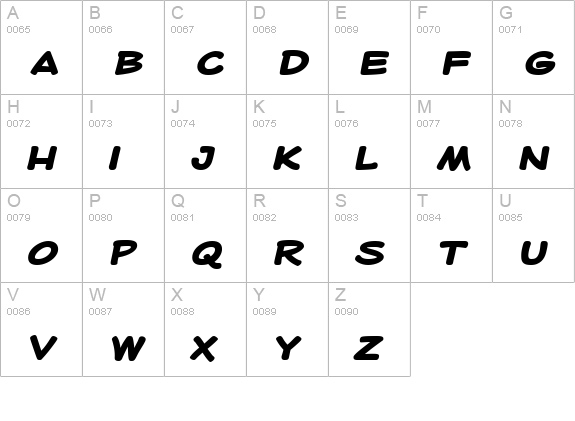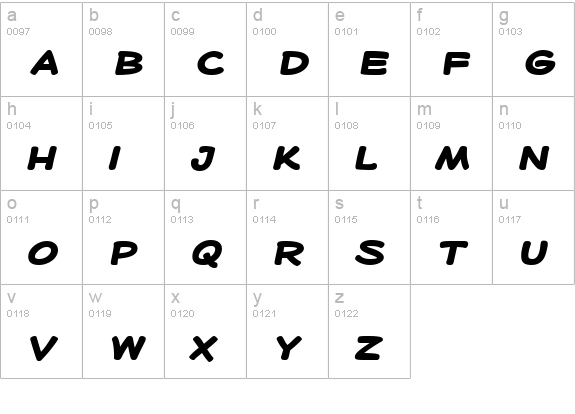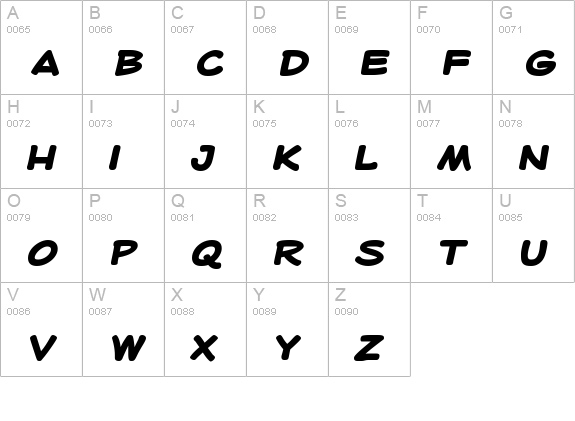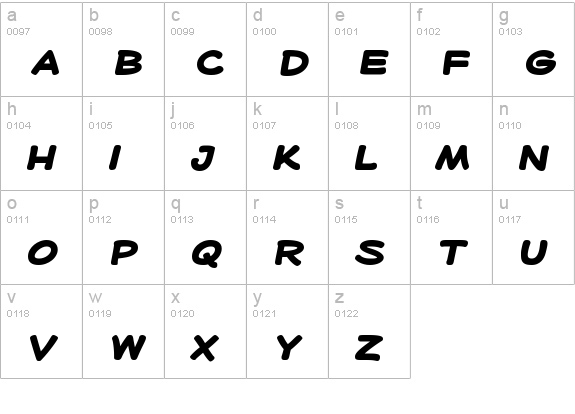
Heroid Bold is a strong, high-contrast variant in the Heroid typeface family \xE2\x80\x94 well suited to headlines, attention-grabbing titles, and strong calls-to-action.
Heroid Bold font is a striking and modern typeface that exudes confidence and boldness. Its strong and clean lines make it perfect for headlines, titles, and other attention-grabbing text. The thick strokes and sharp edges give Heroid Bold a powerful presence on the page, making it a great choice for designs that need to make a statement. What sets Heroid Bold font apart is not just its eye-catching design, but also the fact that it is available for free download at FontsMarket.com. This means that you can easily add this impressive font to your collection without any cost, making it accessible to designers and creatives of all levels. With its combination of style and affordability, Heroid Bold font is sure to become a go-to choice for your next project.